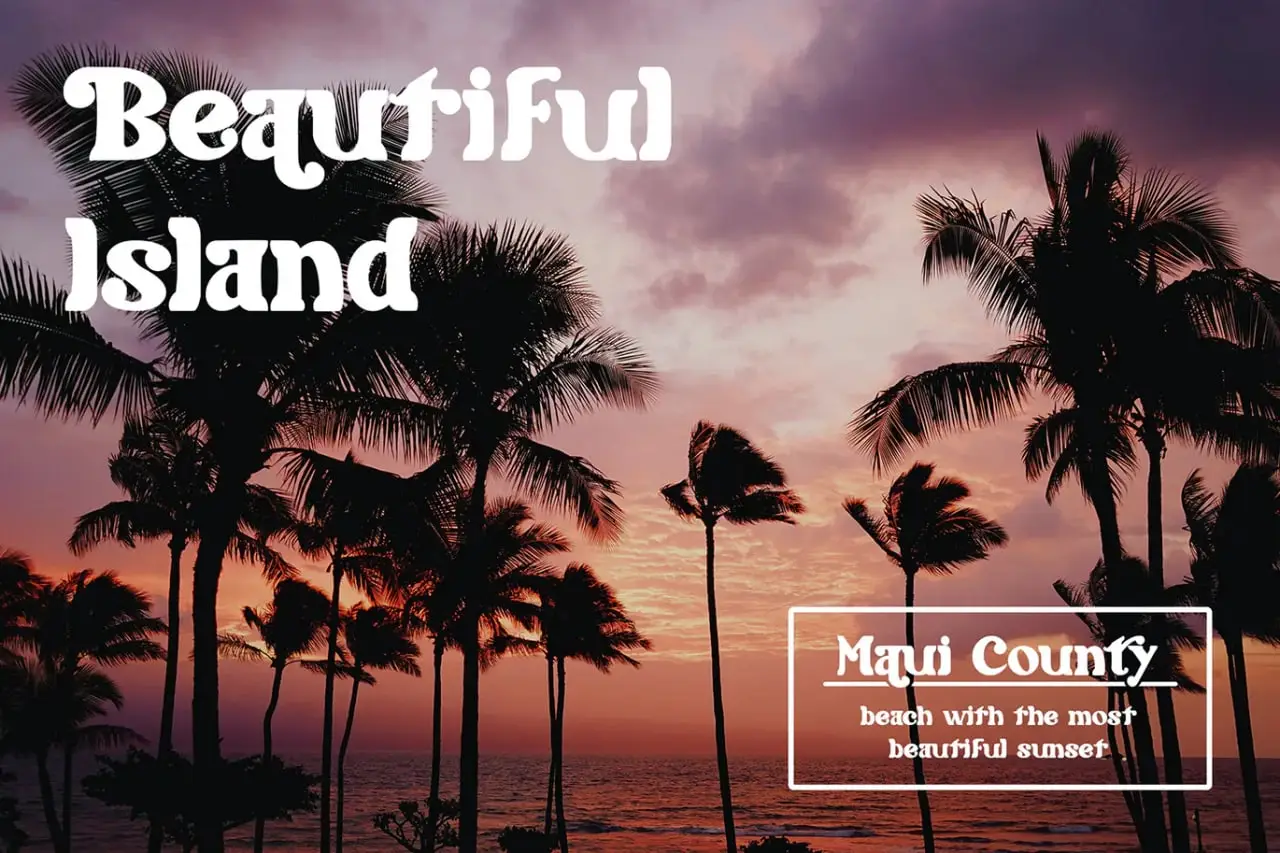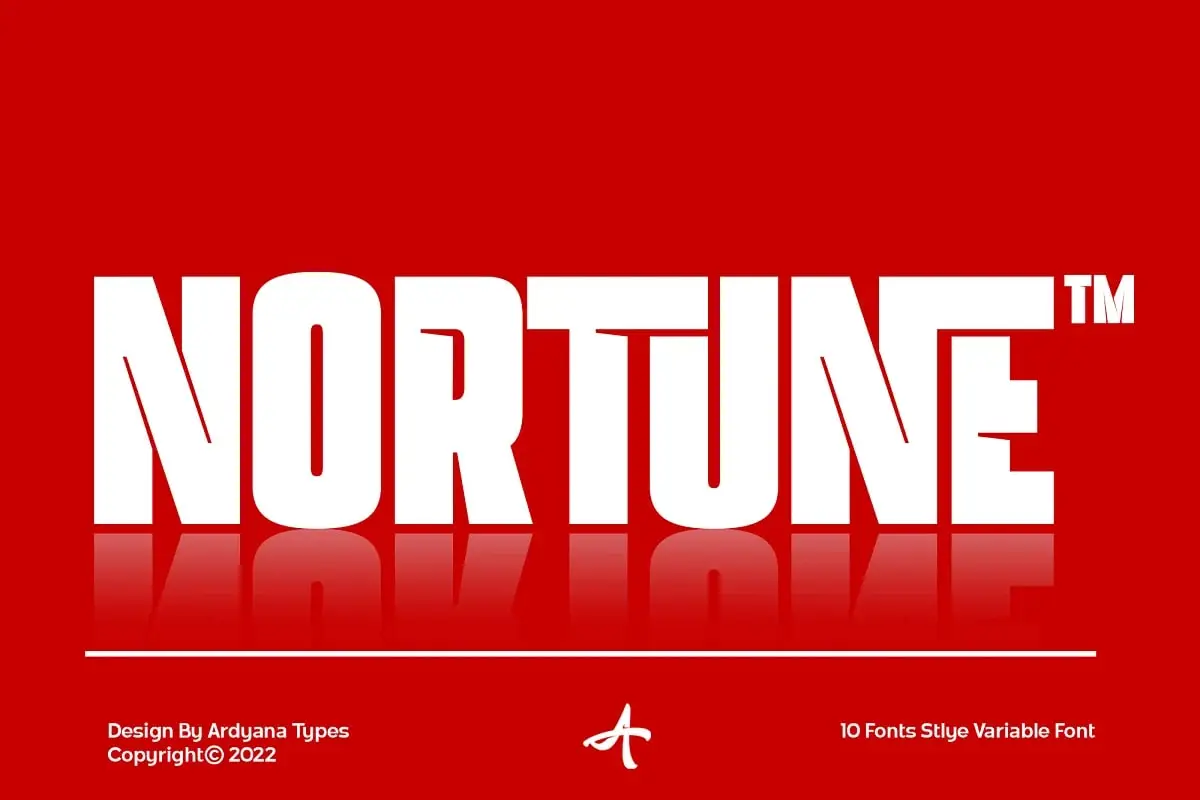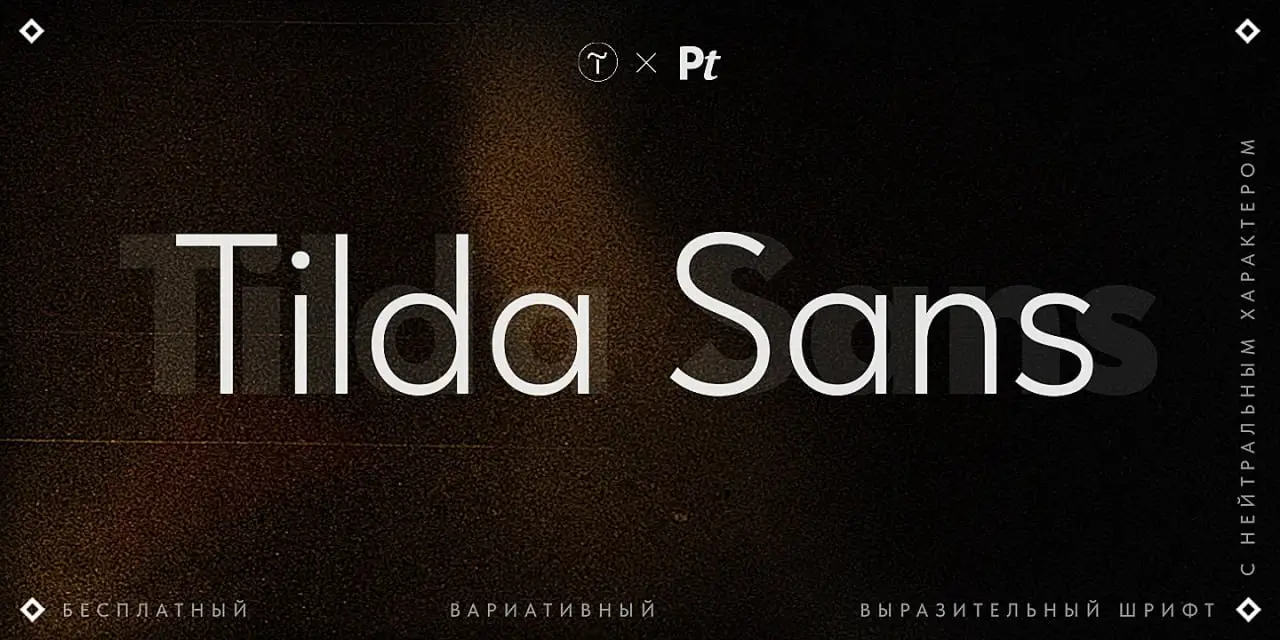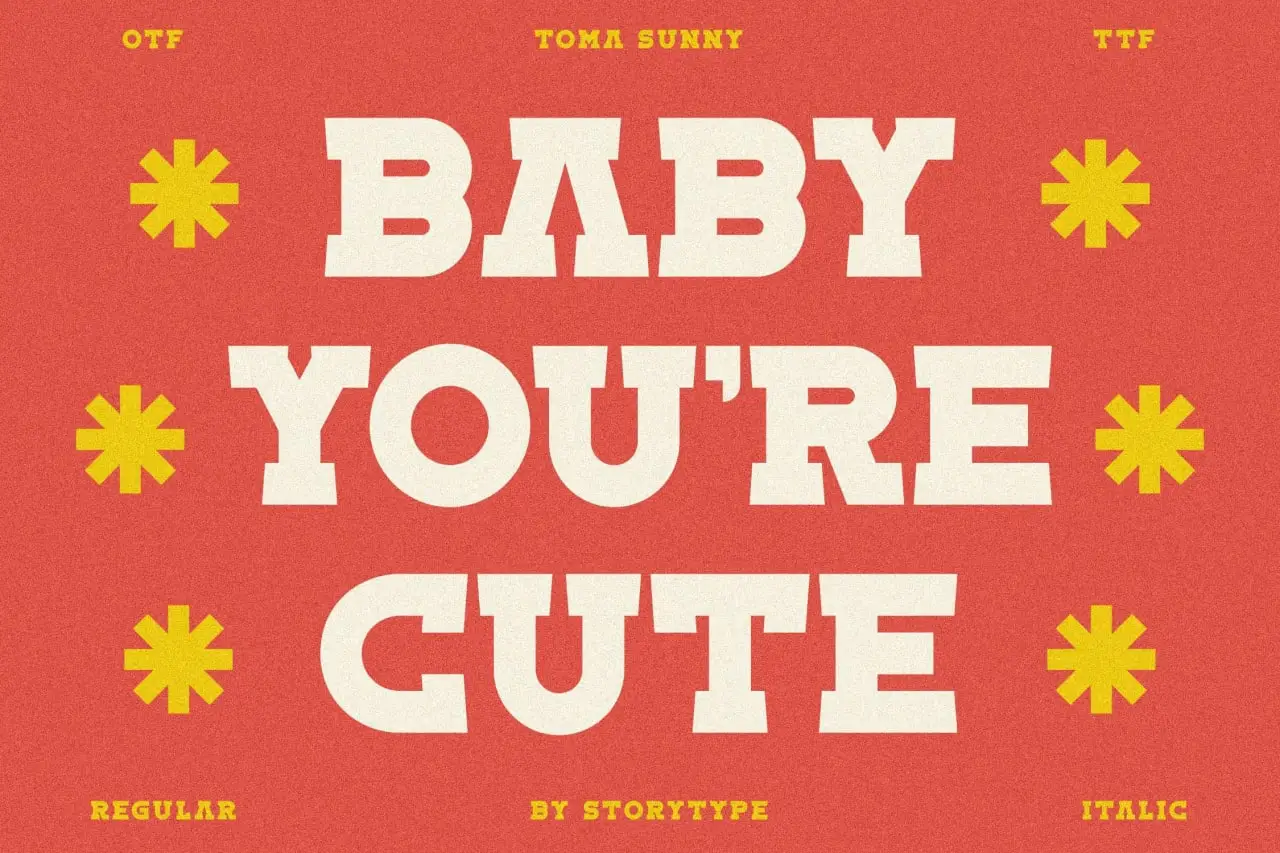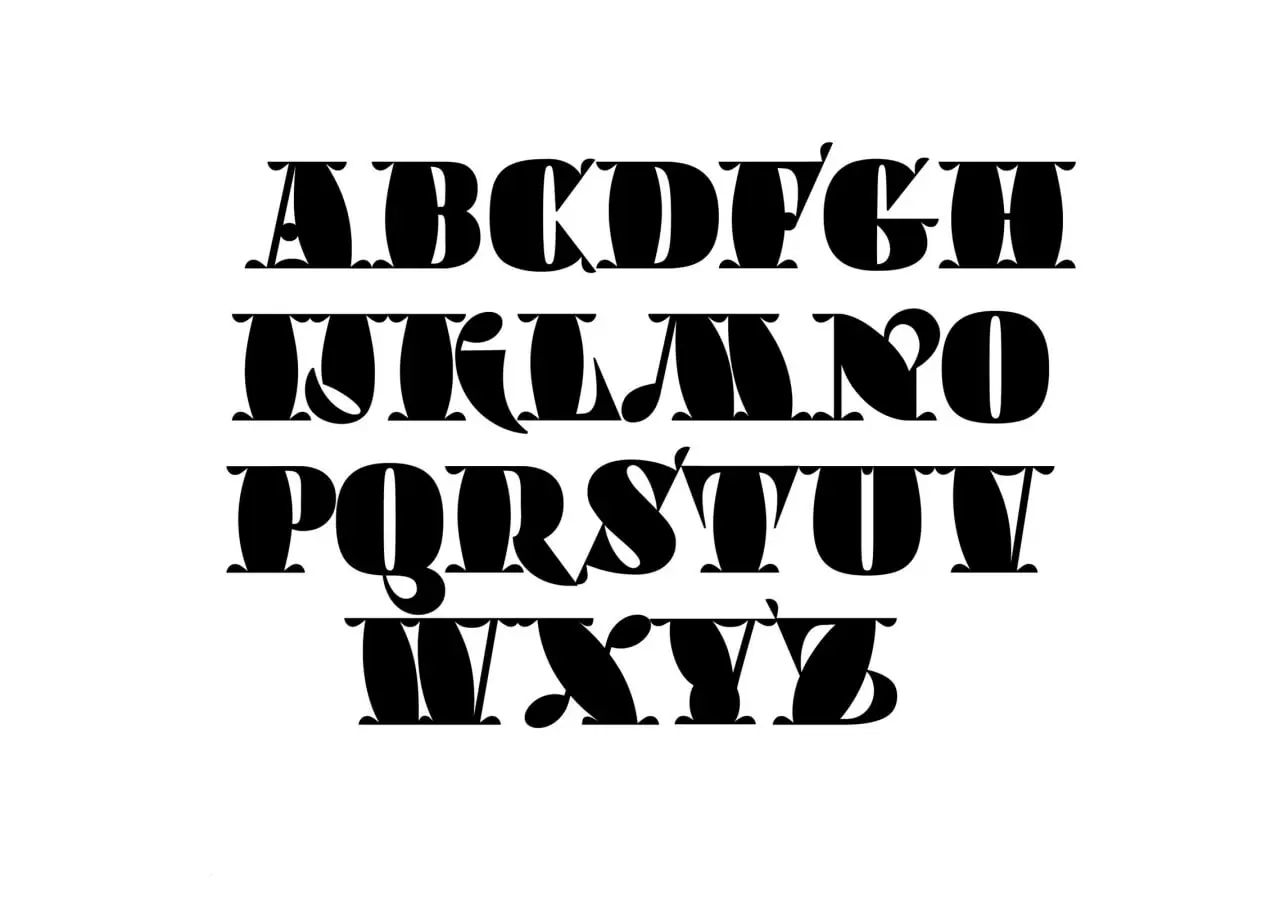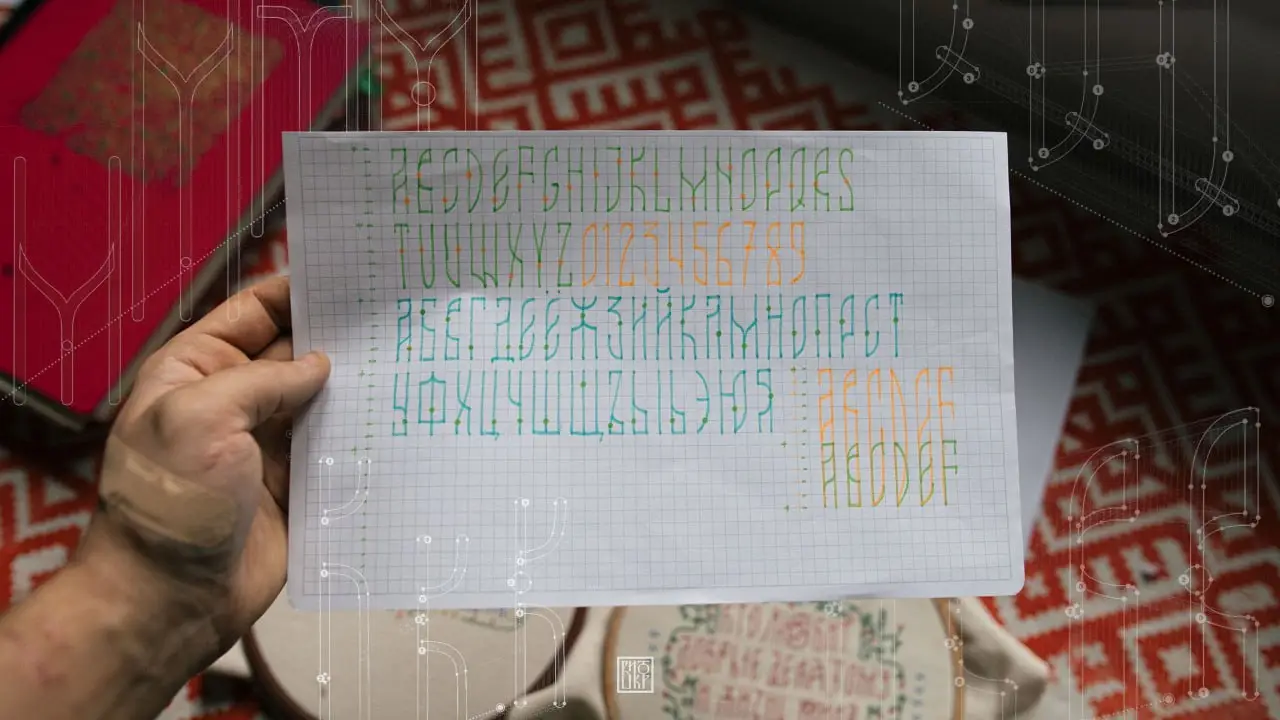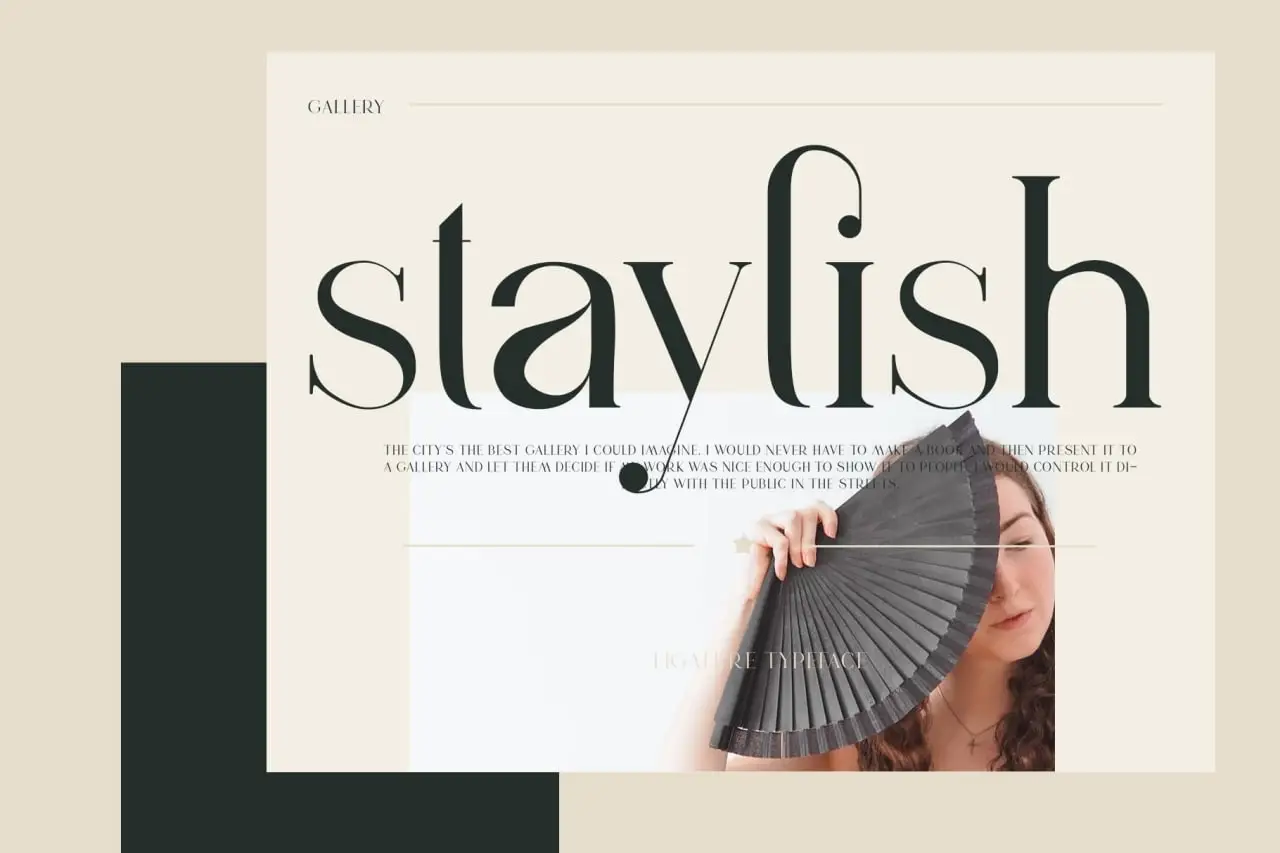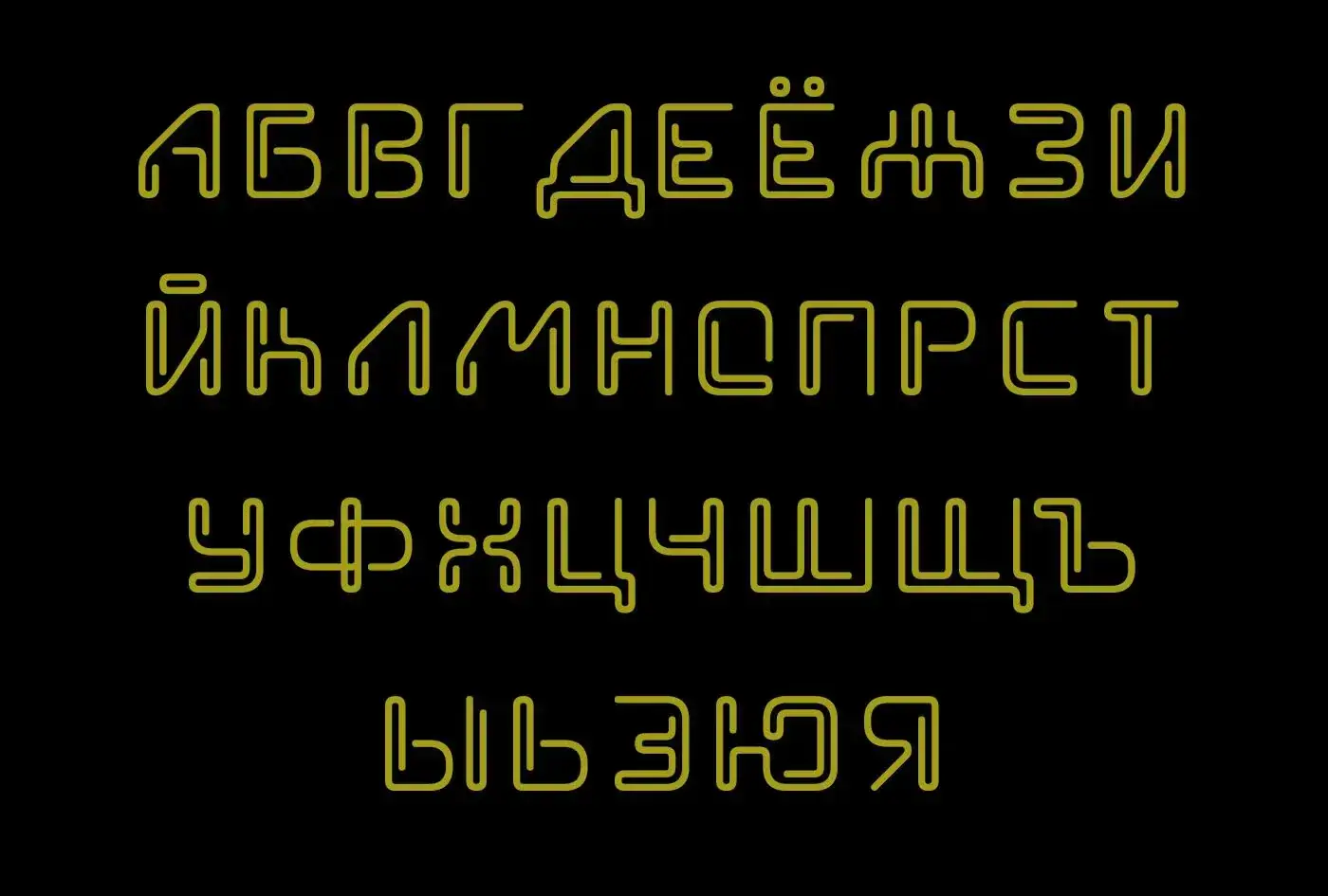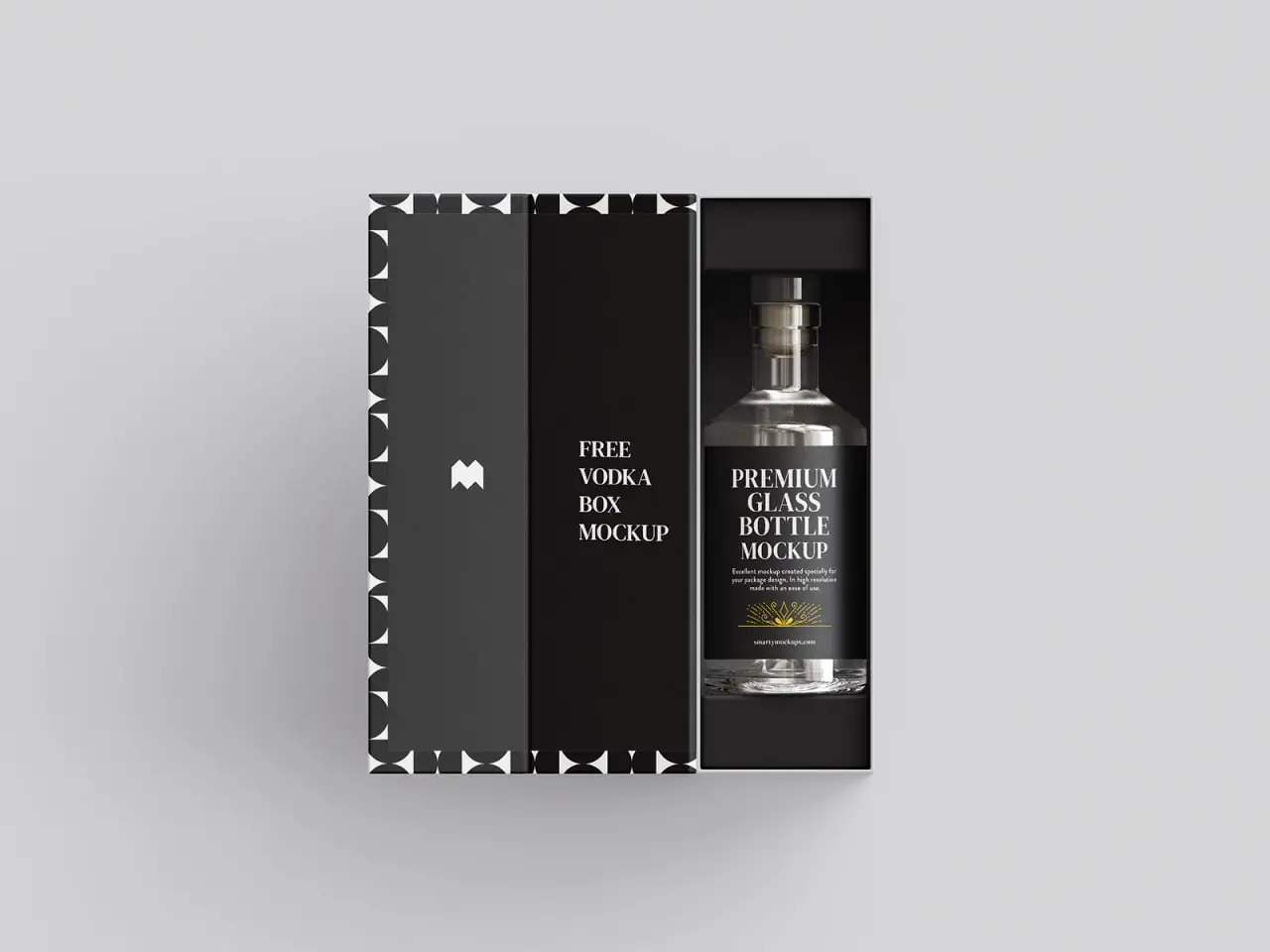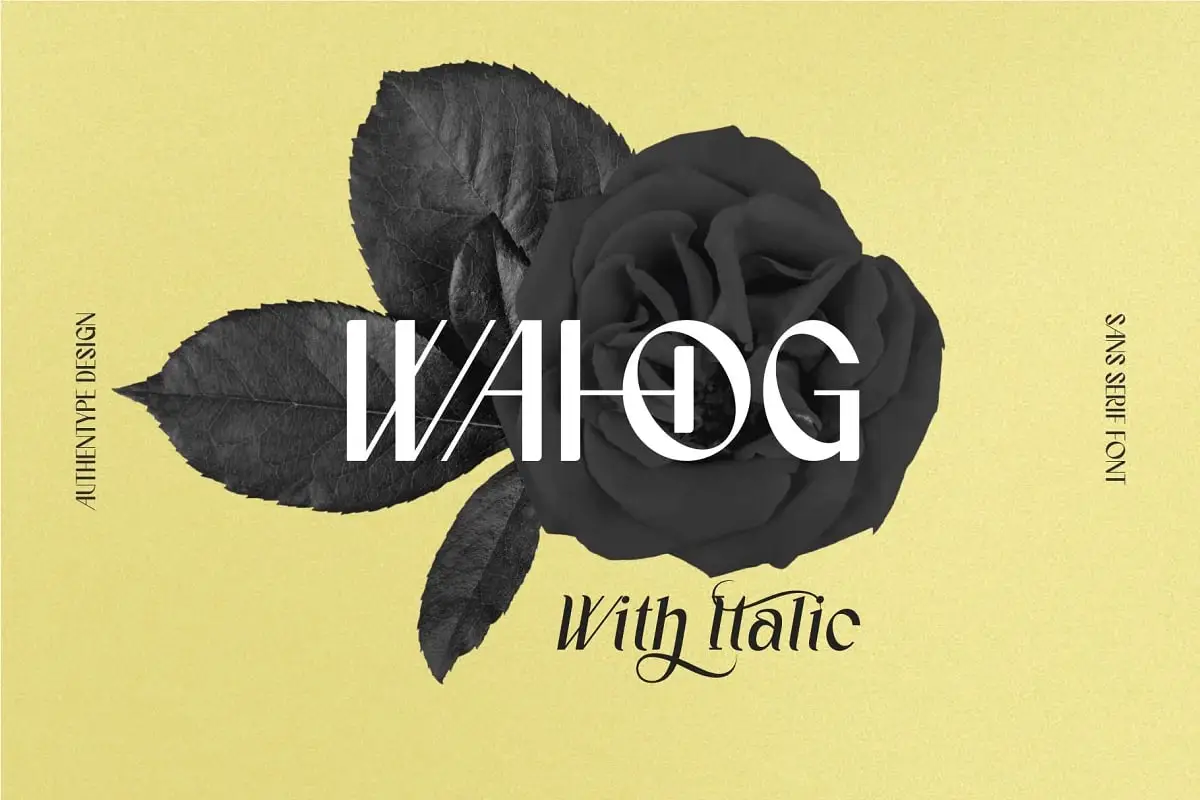
Vf Milora By Marta Martynova
Elegance meets modern flair! 🖋️ Vf Milora by Marta Martynova is a stunning font that blends classic and contemporary vibes, perfect for logos or wedding invites. With multiple weights, you’ll have total creative flexibility!
Novoposelensky By Sasha Pavljenko
A fresh contemporary typeface that screams versatility! 🌟 Novoposelensky by Sasha Pavljenko includes uppercase, lowercase, numerals, and punctuation—everything you need for branding and web projects.
Nocturne-Podgy Serif Font
This serif font is a total charmer! 🎭 Nocturne-Podgy blends classic serif elegance with a modern twist, making it ideal for editorial designs or luxury branding. Multiple weights mean endless possibilities!
Zaychik Font By Maria Khmelevskaya
Playful, cute, and full of personality! 🐰 Zaychik Font by Maria Khmelevskaya features rounded edges and a friendly look, perfect for kids’ brands, logos, and whimsical digital art.
Wahog-Sans Serif With Nice Italic
Clean, readable, and oh-so-stylish! 🖤 Wahog Sans Serif comes with an elegant italic style that adds a touch of class to any web or print project. Multiple weights make it a workhorse font.
Vintage Party By Putracetol Studio
Let’s get nostalgic! 🎉 Vintage Party by Putracetol Studio captures that retro celebration vibe, perfect for invitations, posters, and social media graphics. High-quality graphics for web and print.
Vindea Font
Absolutely gorgeous craftsmanship! 🌸 Vindea Font combines elegance with modern aesthetics, making it a top pick for branding and web design. Multiple weights give you all the flexibility you need.
Y2K Logo Font Orbit
Feeling the early 2000s vibe? 🤖 Y2K Logo Font Orbit is bold, geometric, and packed with playful curves—perfect for retro-futuristic logos and digital artwork that stands out!
Nortune — By Ardyanatypes
Elegance and modernity in one stunning package! 🏆 Nortune by Ardyanatypes is perfect for branding, logos, and print projects. Its unique character set gives your work a distinctive edge.
Youth Mojito-A 3D Bubbly Svg Font
Party time with a bubbly twist! 🥳 This 3D SVG font is playful and vibrant, perfect for eye-catching headlines and fun designs. Available in OTF, TTF, and WOFF formats for any platform.
Neotoxic Sans Serif + 6 Font Style
Six styles in one powerhouse family! 💪 Neotoxic Sans Serif is ultra-versatile for logos, branding, and layouts. Clean, modern, and ready to rock any project you throw at it.
Vlashu
A versatile digital design asset that elevates any creative project! 🚀 Vlashu offers high-quality graphics that are easy to customize, making it a must-have for personal branding and professional use.
Tt Interphases Pro — By Typetype
A modern typeface that’s built for digital and print! 🖥️ TT Interphases Pro by Typetype offers multiple weights and a clean contemporary style, ideal for user interfaces and branding.
Toma Sunny Font By Storytype Studio
Warm, friendly, and full of sunshine! ☀️ Toma Sunny Font by Storytype Studio blends playful curves with clean lines, making it perfect for branding, logos, and any project needing a personal touch.
Tumb Quirky Ink Trap Display
Quirky and totally unique! 🎪 Tumb Quirky Ink Trap Display features distinctive ink trap details that make headlines and logos pop. Multiple weights give you plenty of room to play.
Umnaya Masha By Kseniya Burlankova
A smart, versatile digital asset for branding and marketing! 🧠 Umnaya Masha by Kseniya Burlankova is easy to customize and perfect for social media graphics or business materials.
Tilda Sans By Aleksandra Korolkova, Dmitriy Golub, Nick Nedashkovskiy
A modern sans-serif dream team! ✨ Tilda Sans is clean, geometric, and supremely legible. Multiple weights make it a go-to for web design, branding, and editorial projects.